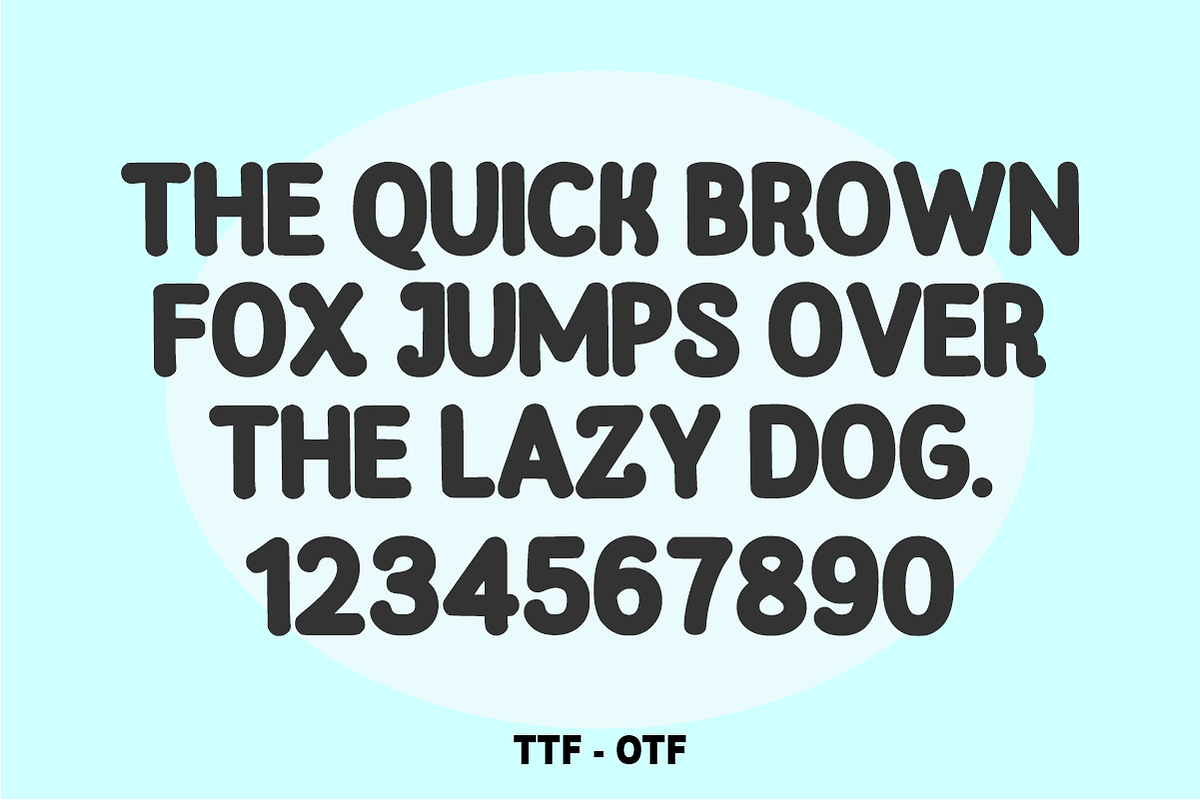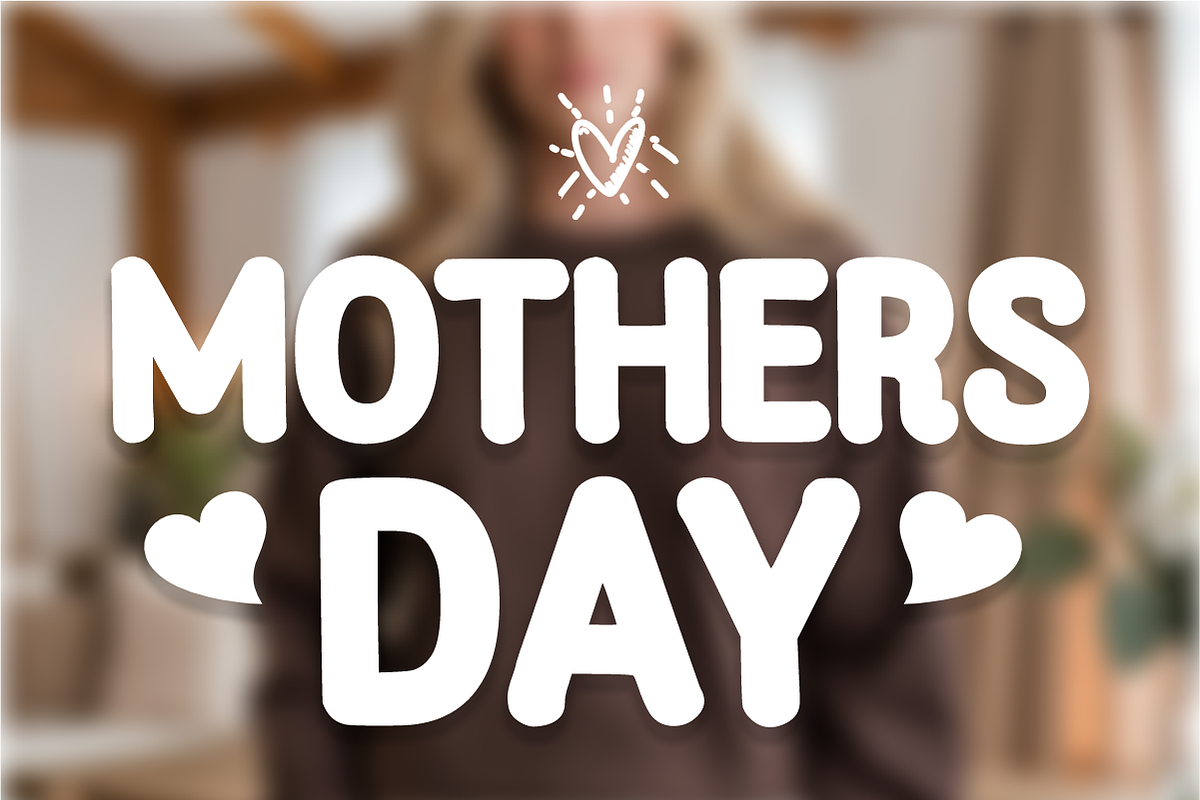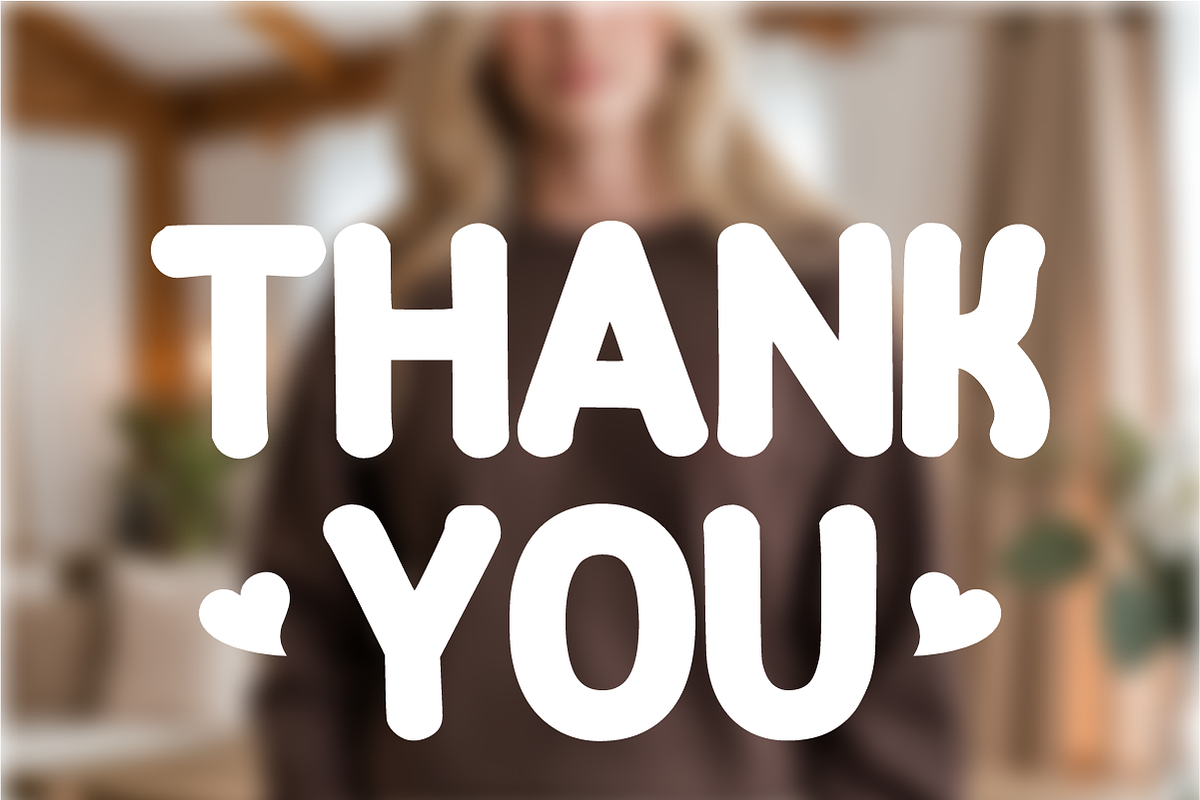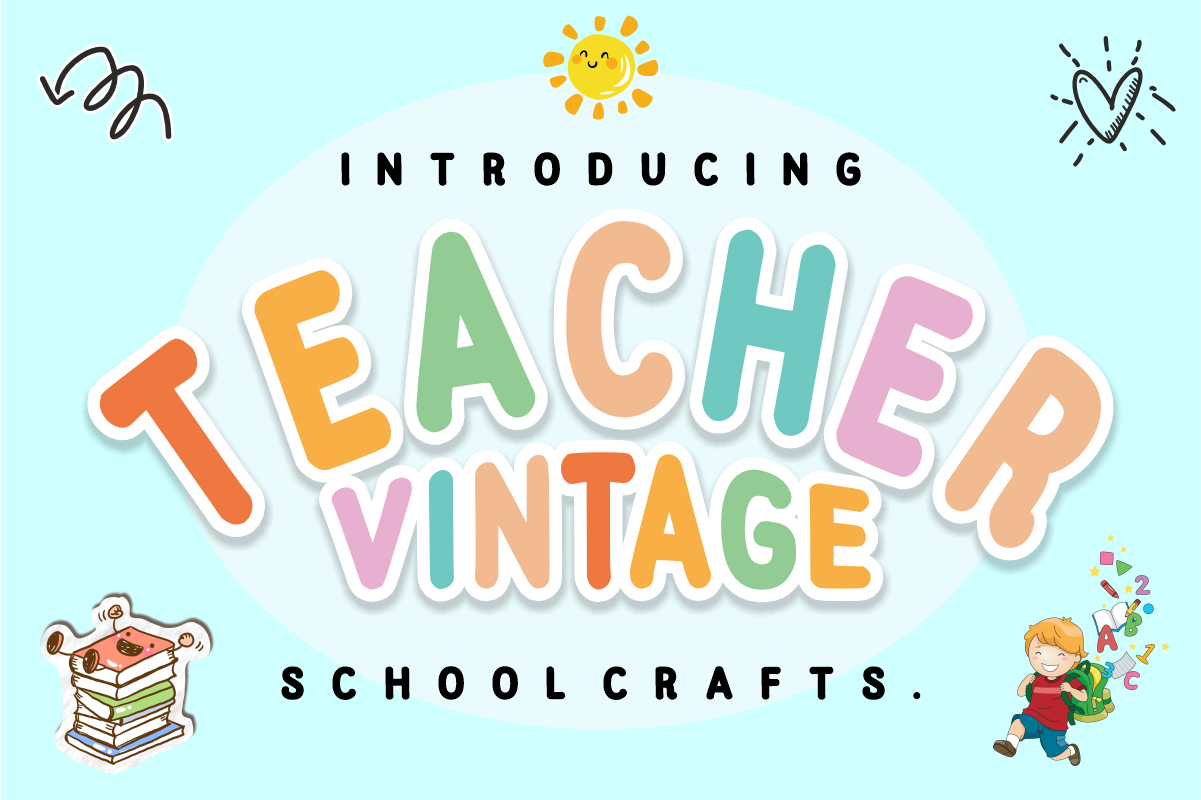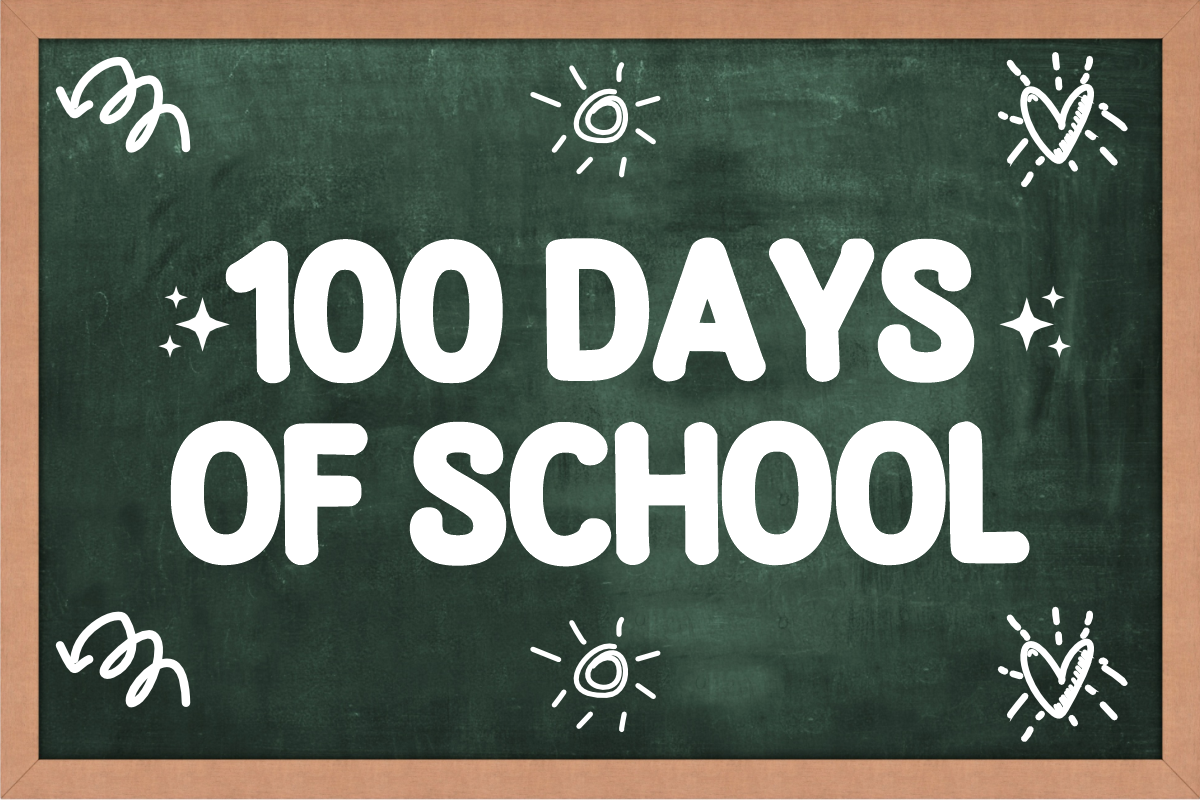
Teacher Vintage - Playful Font
🍎 Teacher Vintage – Playful Retro School Display Font ✨
Bring a touch of nostalgic charm and "Teacher Life" vibes to your creative projects!
Teacher Vintage is a bold, bubbly, and delightfully rounded display font designed to capture the cozy aesthetic of retro classroom decor. With its soft edges and friendly, chunky silhouette, this font is perfect for creators who want to balance professional clarity with a playful, handcrafted feel. Its unique "sticker-style" look makes every word pop off the page with personality and warmth.
Retro-Modern Aesthetic: Perfectly captures the trending "vintage school" look that is highly popular for social media and merchandise.
Bold & Legible: Designed with high contrast and thick strokes to ensure your headlines remain easy to read across various backgrounds.
Friendly Personality: The rounded terminals and organic shapes make it approachable, ideal for children-focused or community-driven brands.
Full Character Set: Bold Uppercase Letters (A-Z).
Numbers & Symbols: Complete numerals (0-9) and essential simple punctuation.